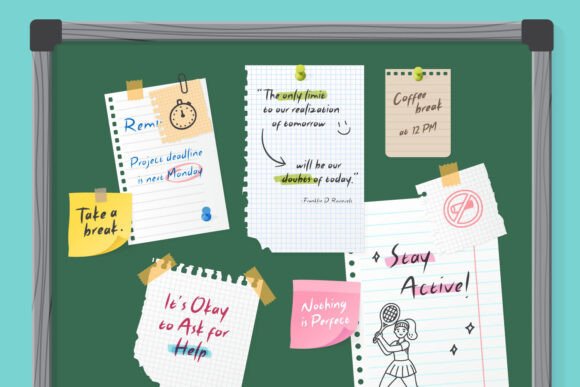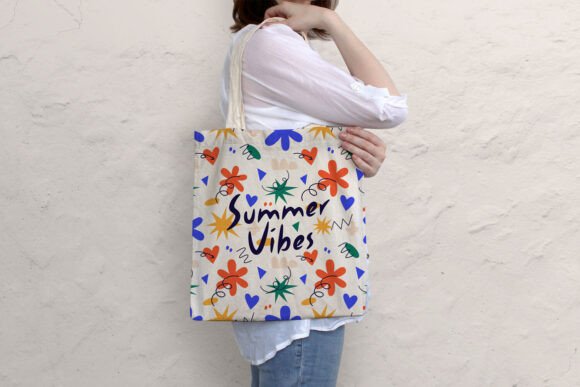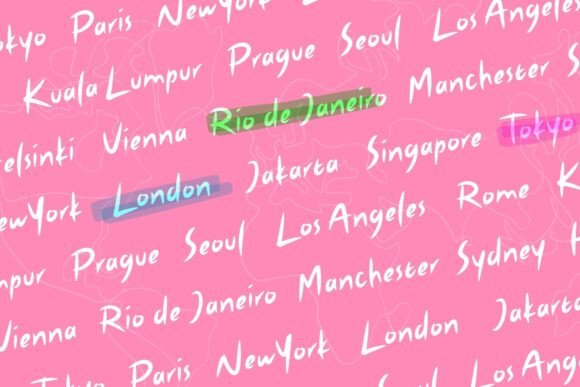
Introduction to Daily Marker Font
Daily Marker is crafted from an everyday marker pen, capturing casual vibes with its bold and natural presence.
Key Features of Daily Marker Font